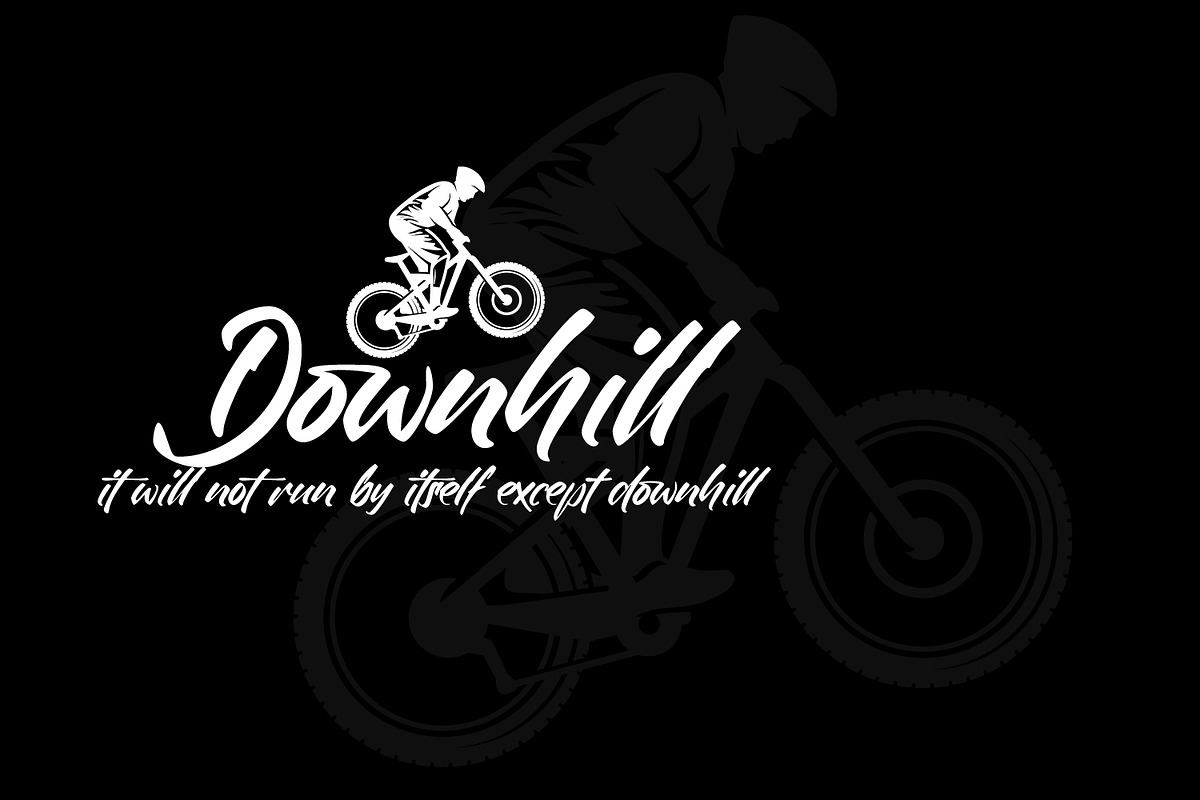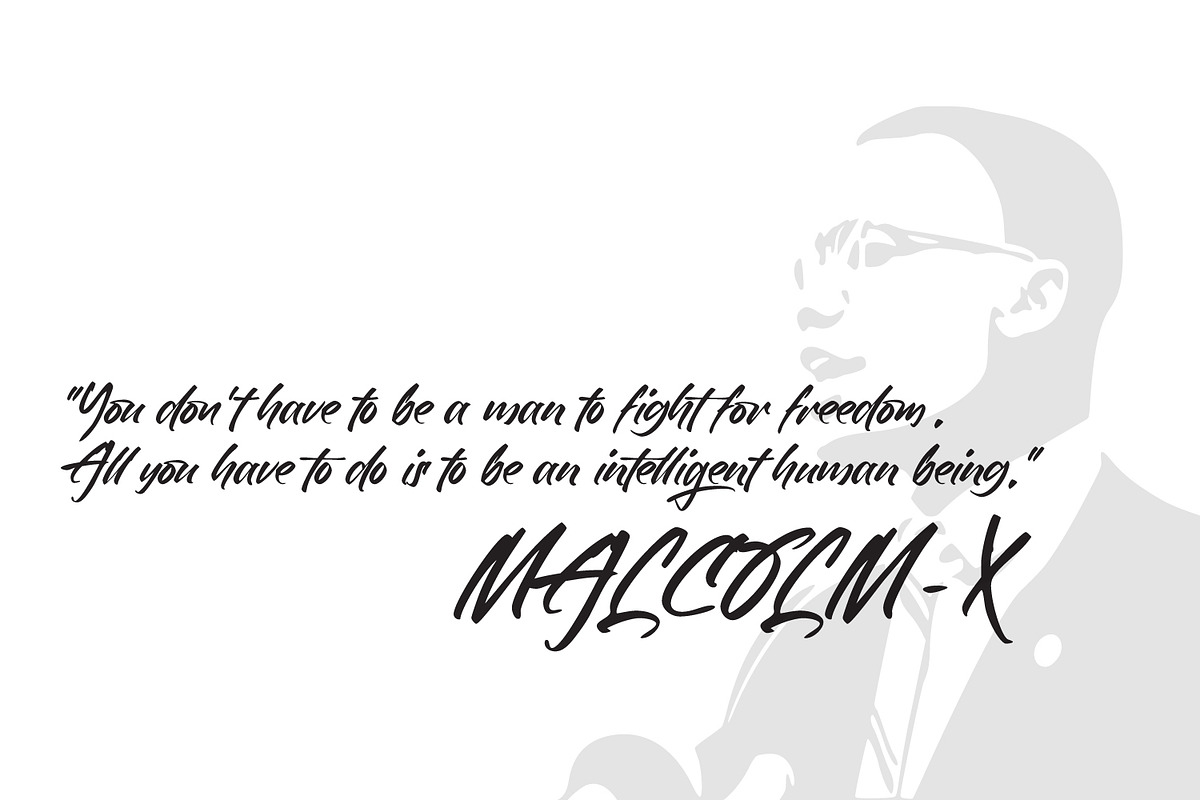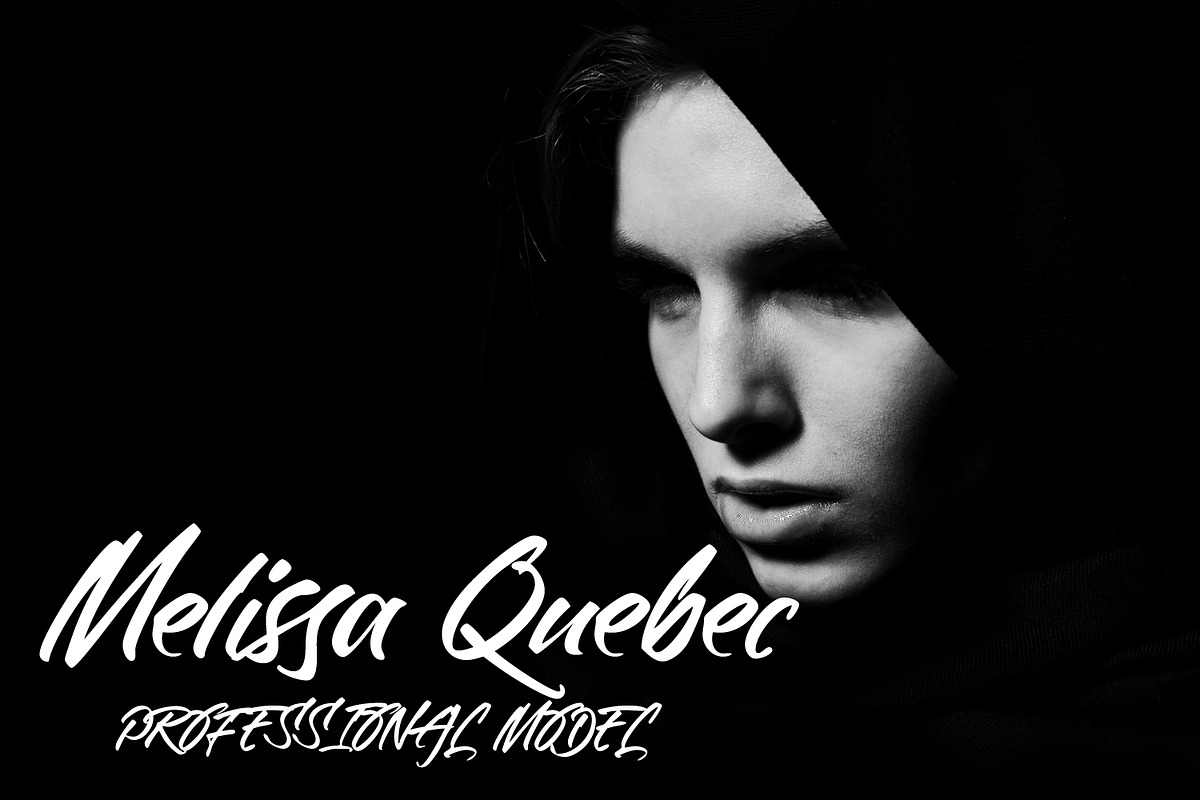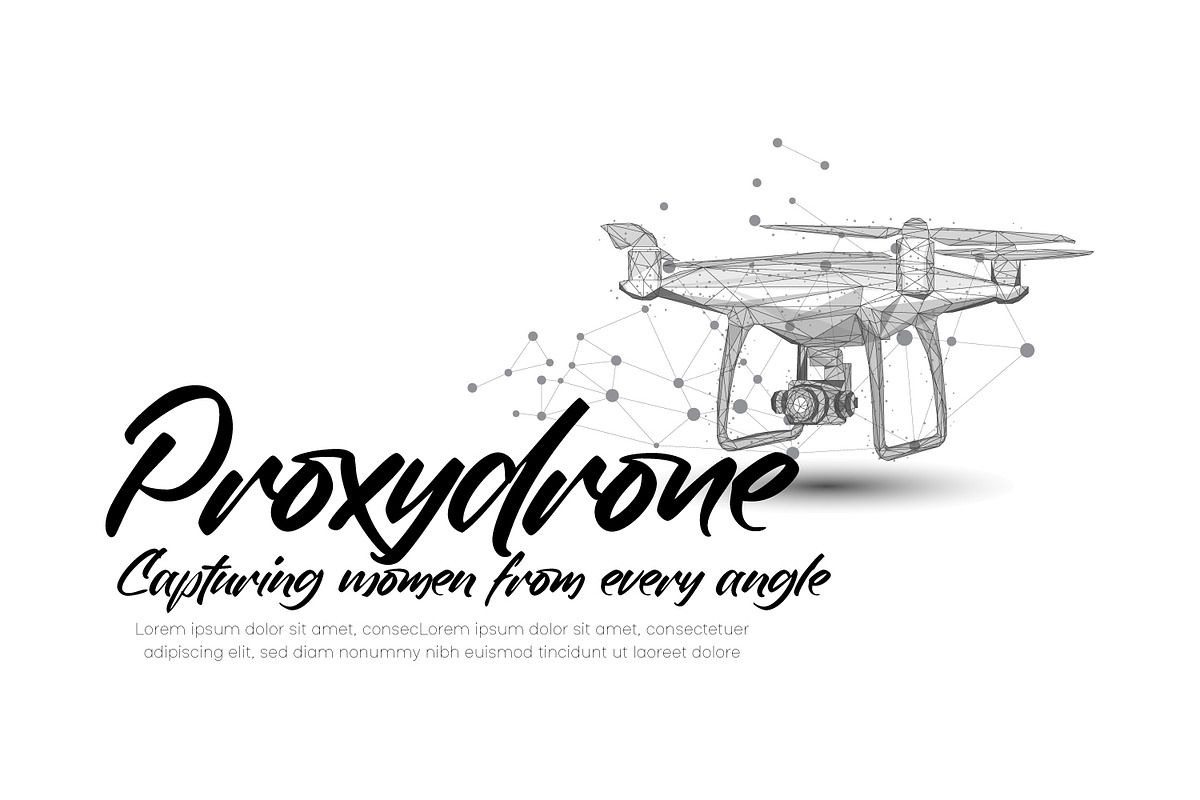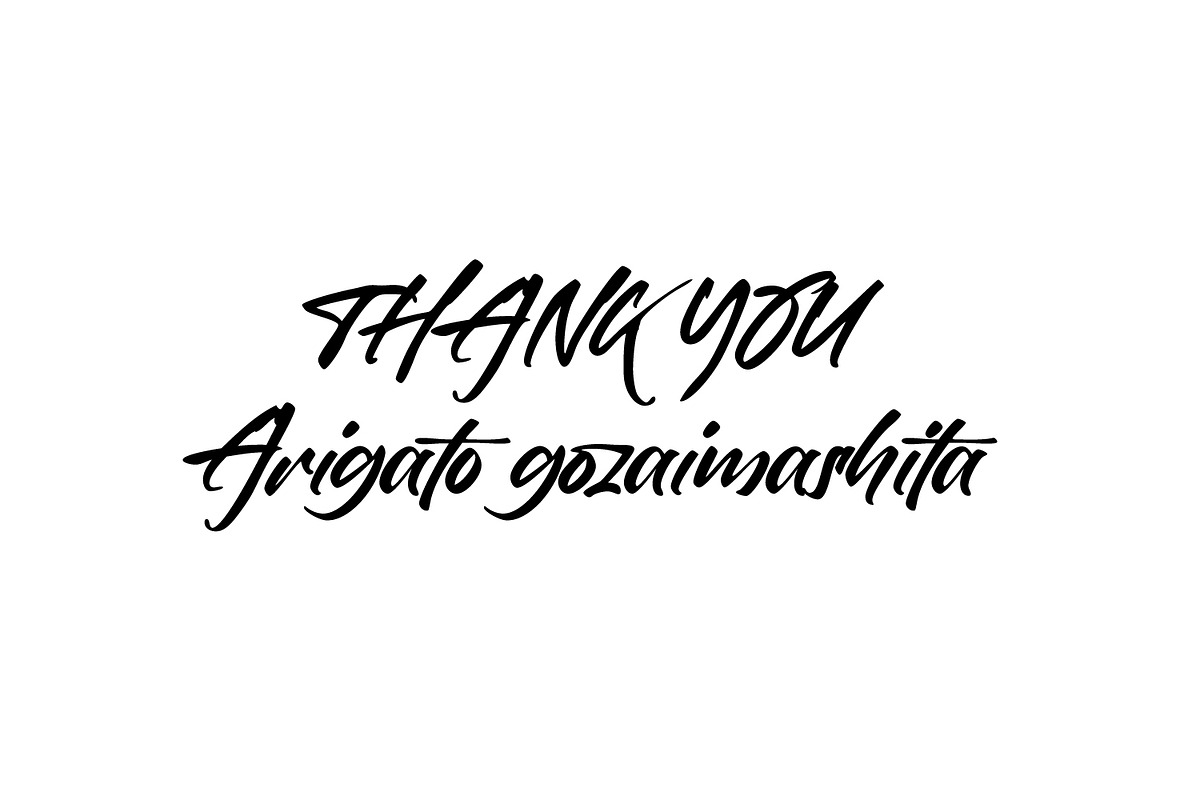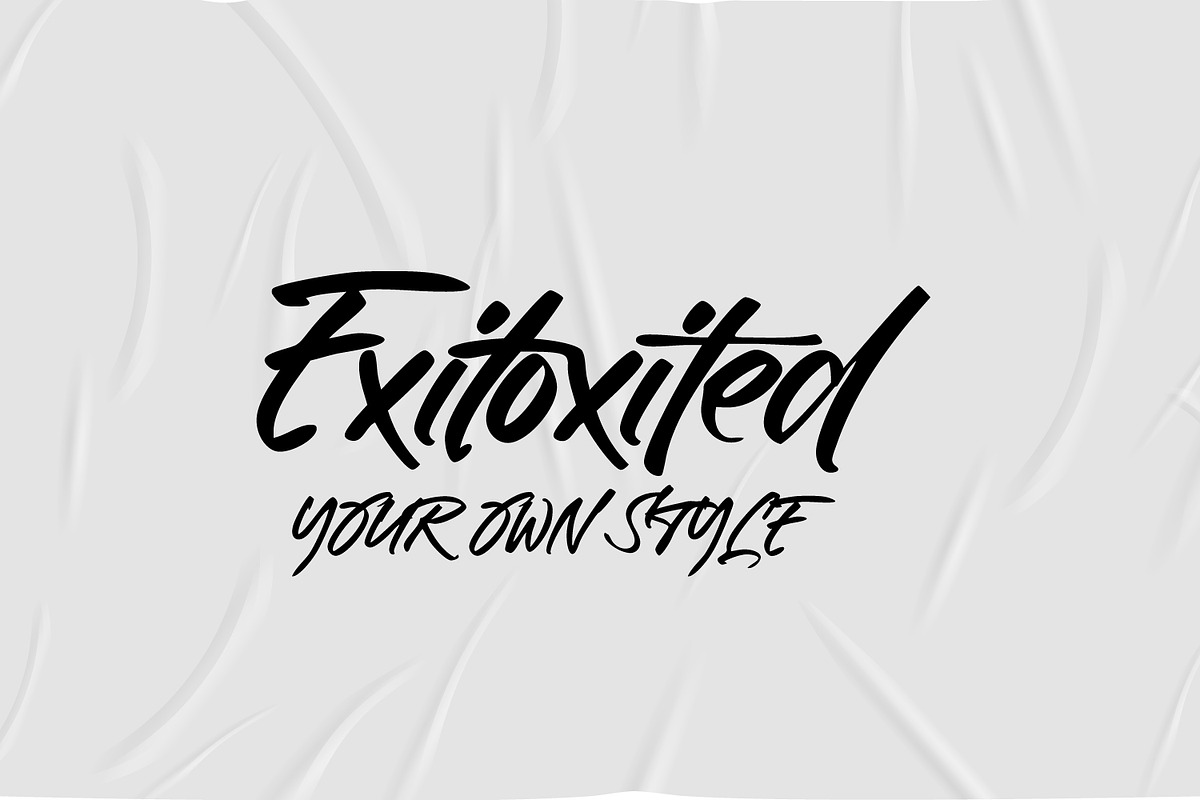
Rollingtime - Brush Script
introducing our new font ‘Rollingtime.’ is a bold script font with a graffiti style. this font looks natural. purely produced from hand sketches. we added a few ligatures to emphasize the natural impression. This font is great for logotypes, brands, website, header, writing quotes and graffiti.